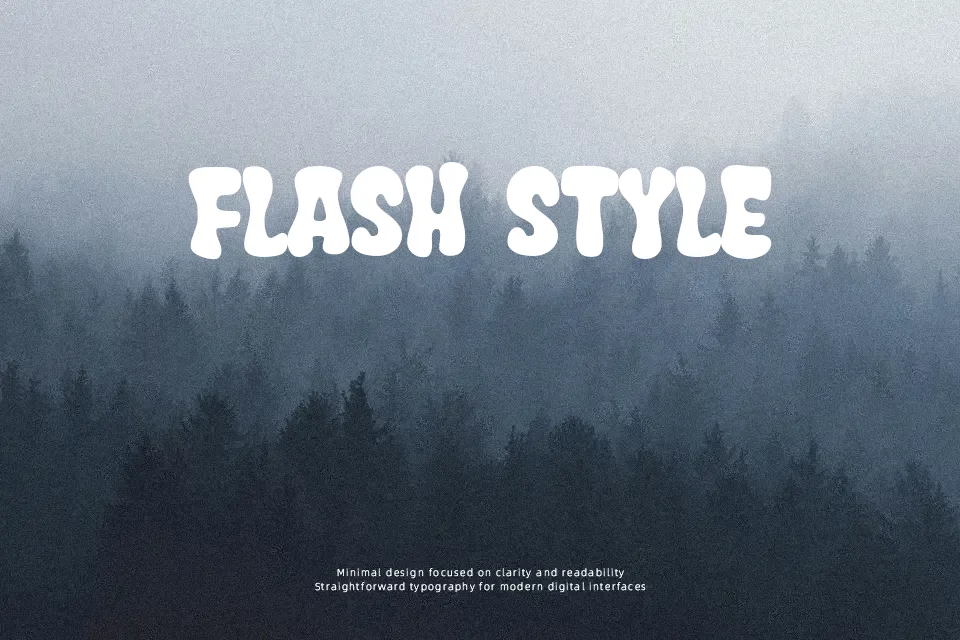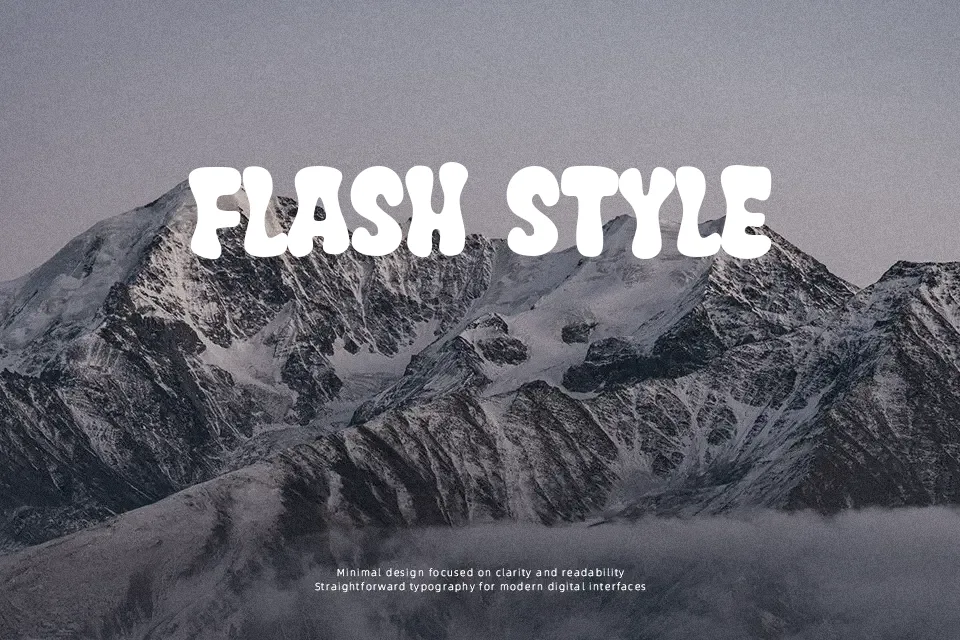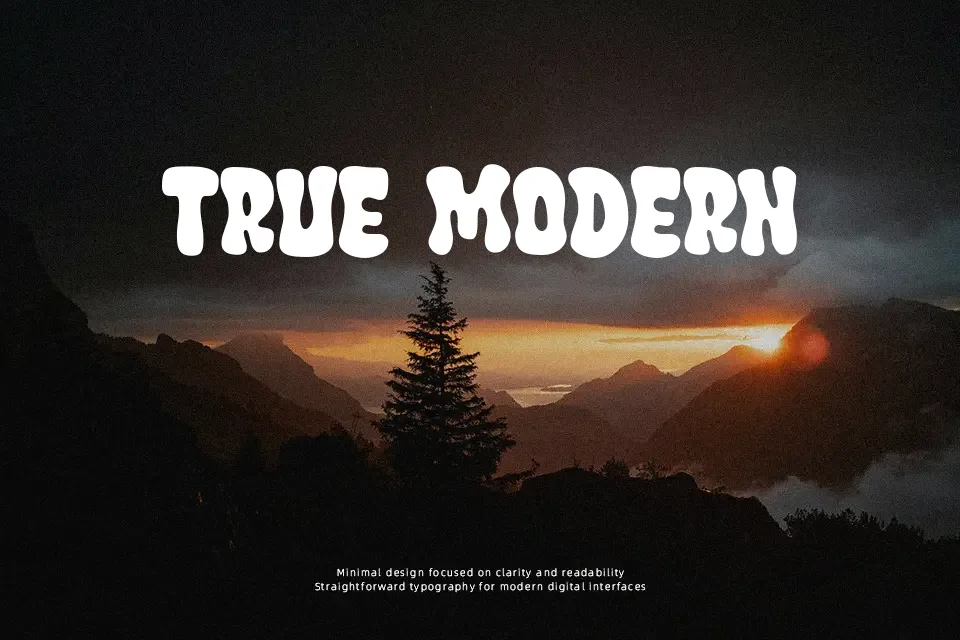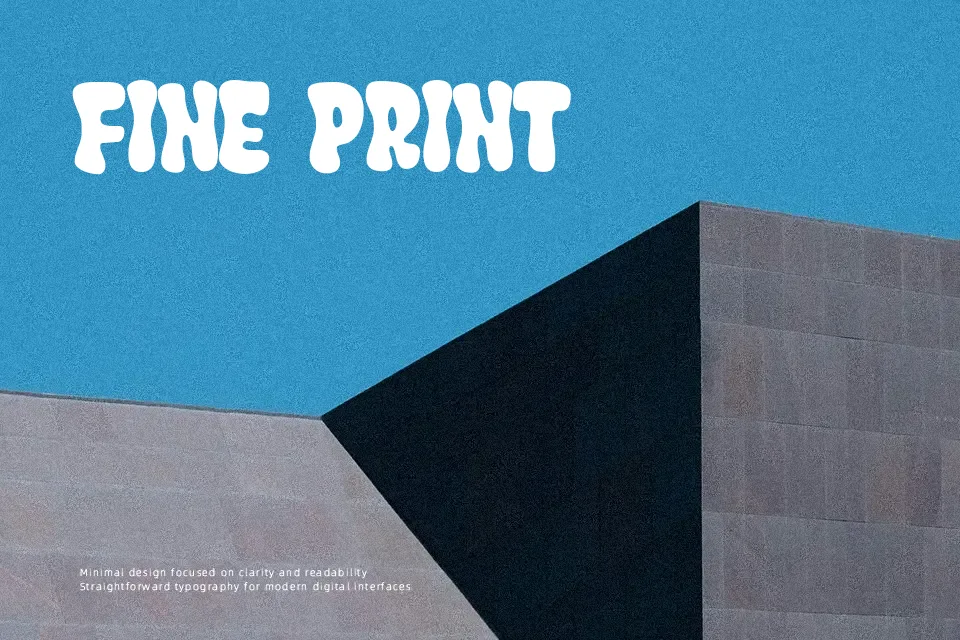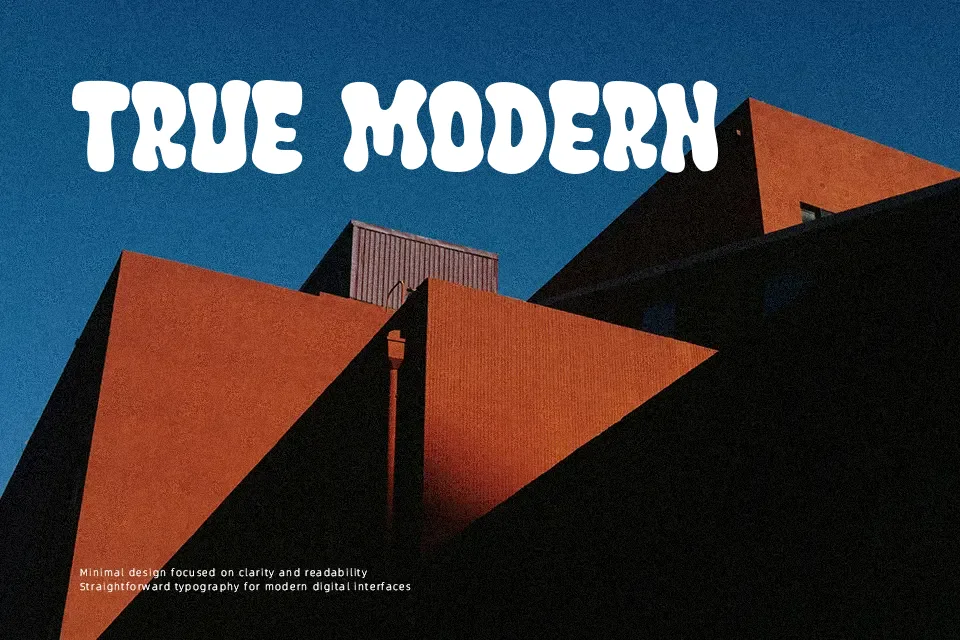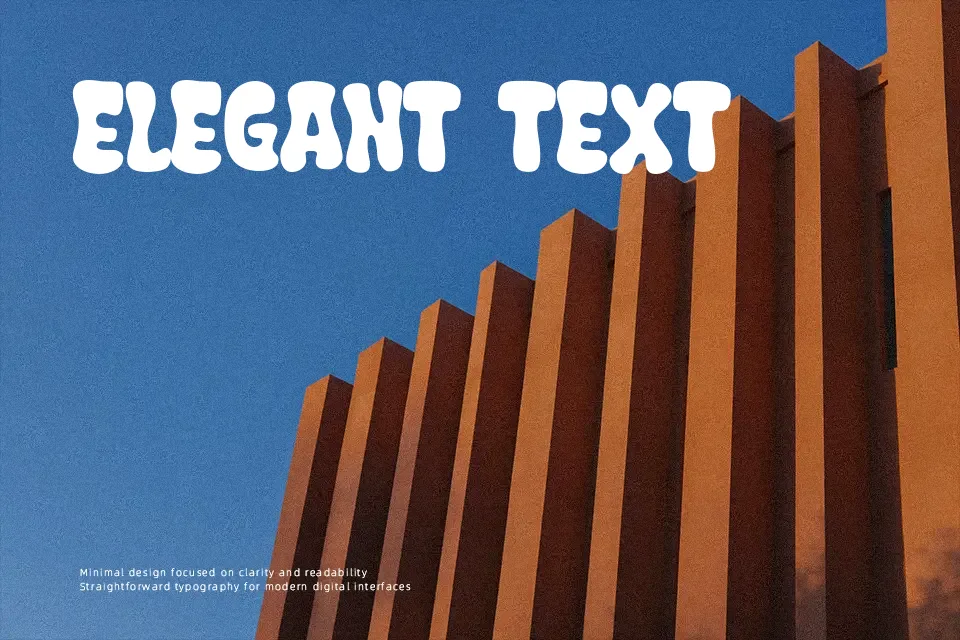
Super Basic Font
Designed by fsuarez913
Super Basic is an ultra-bold display typeface featuring smooth, inflated curves and exceptionally thick strokes that channel a playful 1970s aesthetic. The character proportions remain wide and grounded, while the interior counters stay compact to maximize surface weight across both uppercase and lowercase glyphs. Because letter spacing is inherently snug, the letterforms create dense, eye-catching text blocks that excel in large-scale event flyers, streetwear graphics, and novelty logo treatments. The heavy weight noticeably reduces legibility in dense body copy, making continuous reading difficult. In practical design work, the typeface delivers maximum punch when reserved for brief, punchy headlines rather than smaller editorial settings.
Best For: retro product packaging, music festival posters, streetwear graphics, casual logo designs
Not Ideal For: long body paragraphs, small interface labels, legal documents, dense editorial layouts